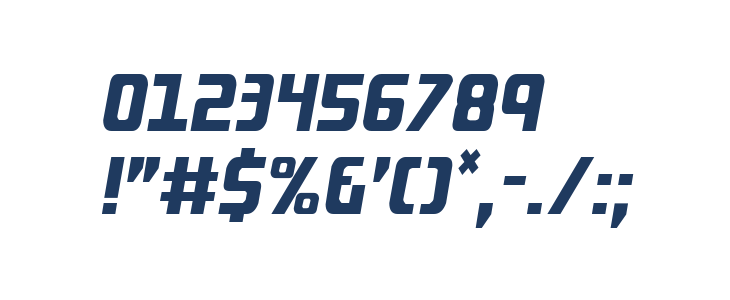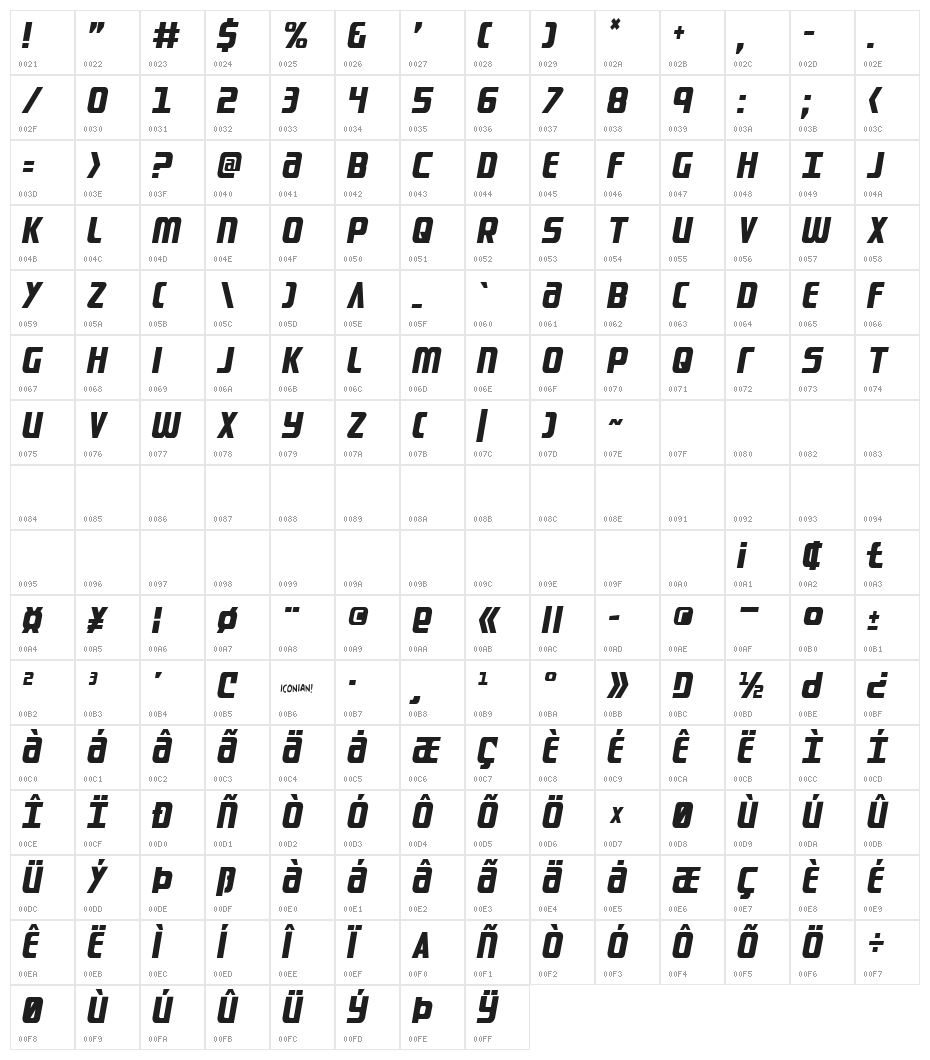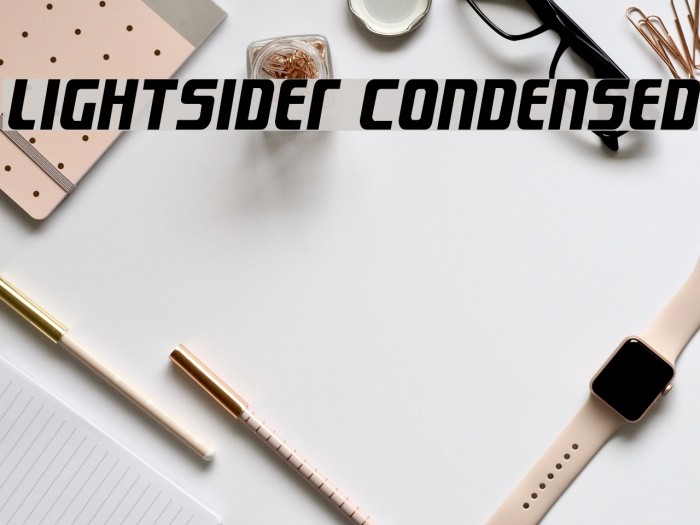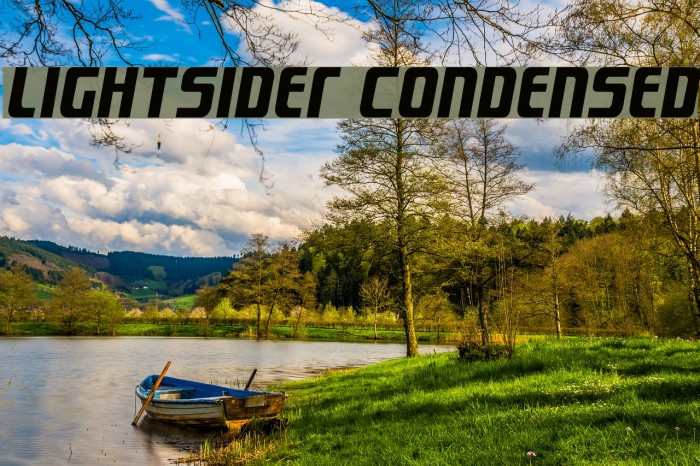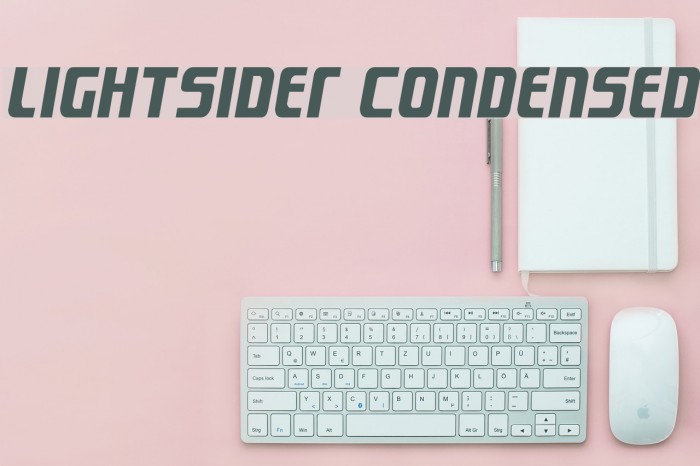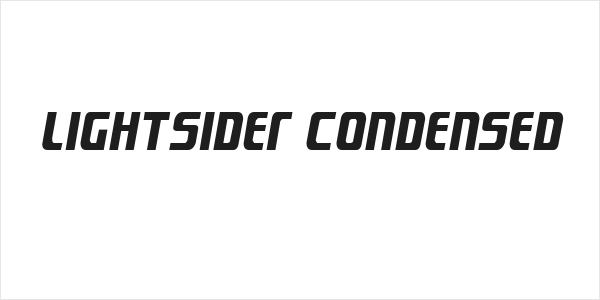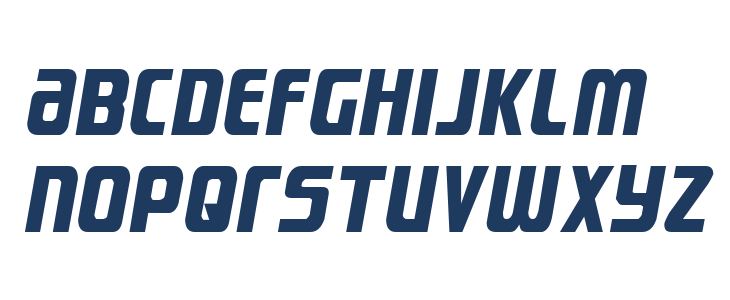
Lightsider Condensed Font
Lightsider Condensed Description
This font features a bold, modern design with a condensed width, giving it a sleek and streamlined appearance. The characters are slightly slanted, adding a dynamic and forward-moving feel. The strokes are thick and consistent, providing a strong visual impact. The font maintains a uniform height across both uppercase and lowercase letters, ensuring readability and balance. Its geometric shapes and clean lines make it suitable for contemporary design projects. The numerals and special characters are crafted with the same attention to detail, ensuring a cohesive look throughout.